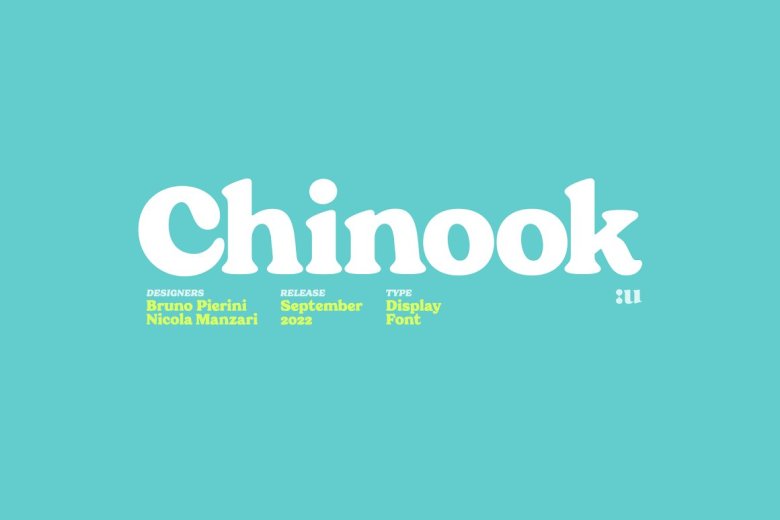
Chinook Font
Chinook Serif Font is a homage to the chunky look of Italian movie titling from the 70-80s, so classic and… well, how could it be otherwise! Our robust display font is also totally flexible within a more modern setting, thanks to balanced and gentle text typesetting, despite its vintage sensibilities. Of course this project refers mainly to an all-time-classic “Cooper Black” but with modern style letter shapes, rounded seriffs and fluffy feeling all the way.
Chinook is a serif typeface with elegant elegance, which has an italic style customized Italic set and extended charset, including multiple languages ​​based on the Latin alphabet and all Open kind features.
Chinook Bold Serif Font